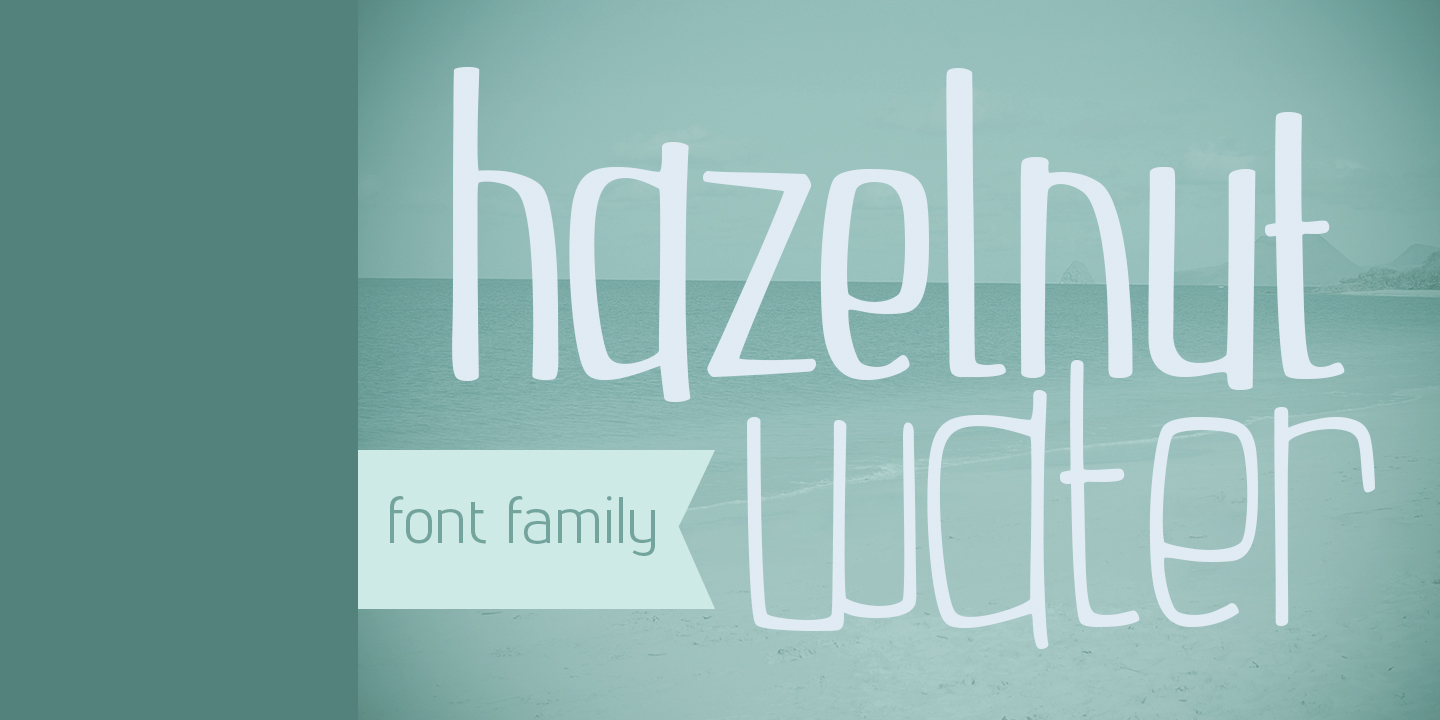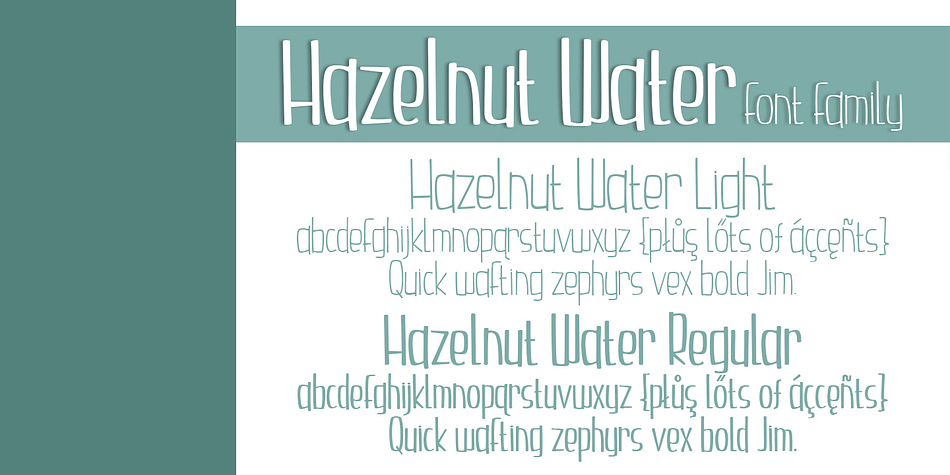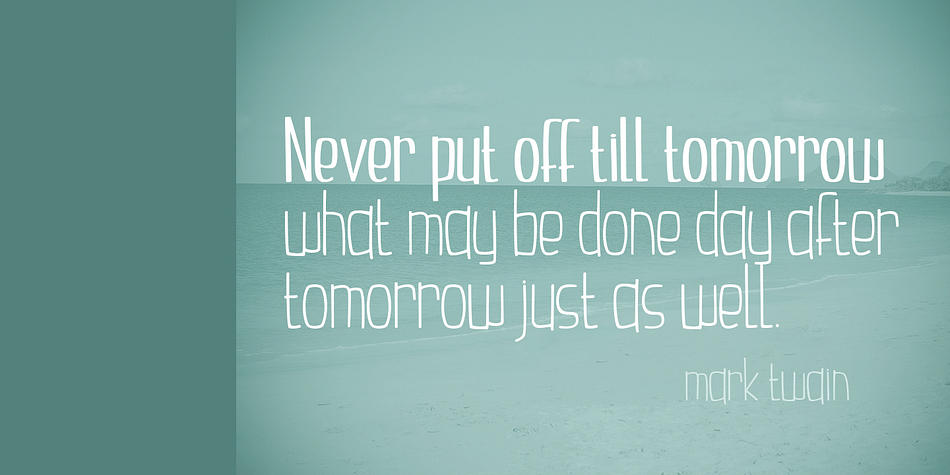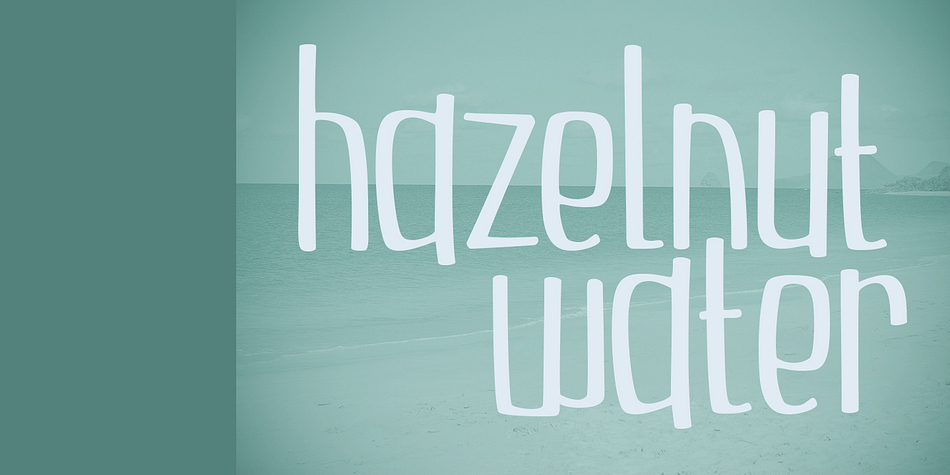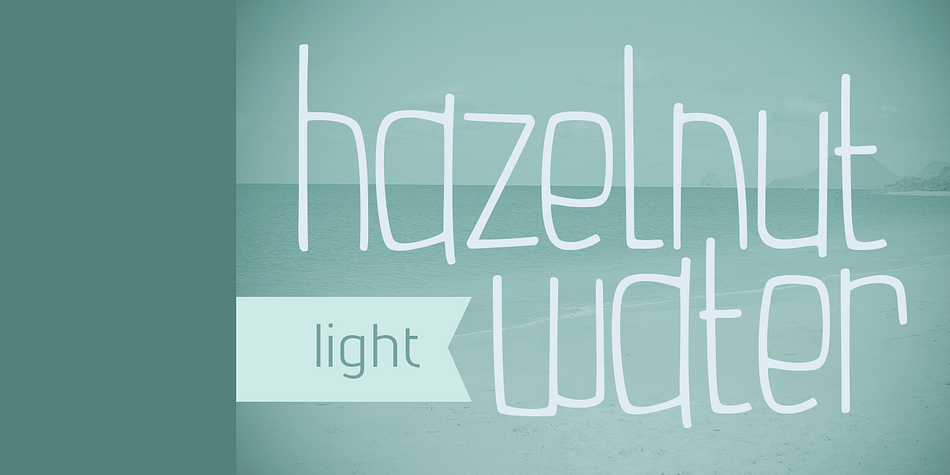
Hazelnut Water is a hand drawn font family. This typeface has two styles and was published by Brittney Murphy Design.
A playful comic font in two weights- regular and light. Great for headlines or text.